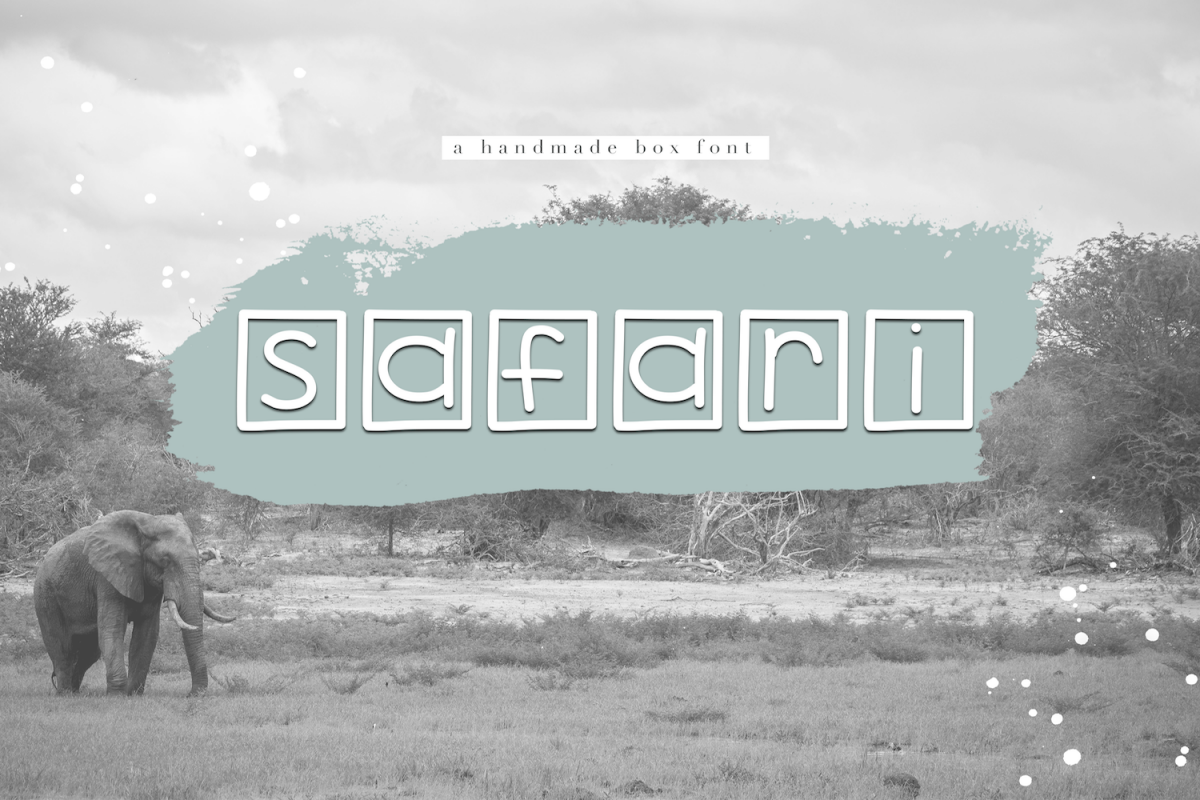
Safari - A Handwritten Box Font
Safari
Safari is a handmade font with a fun box around each letter.
This font is perfect for quotes, headings, blogs, logos, invitations and more!